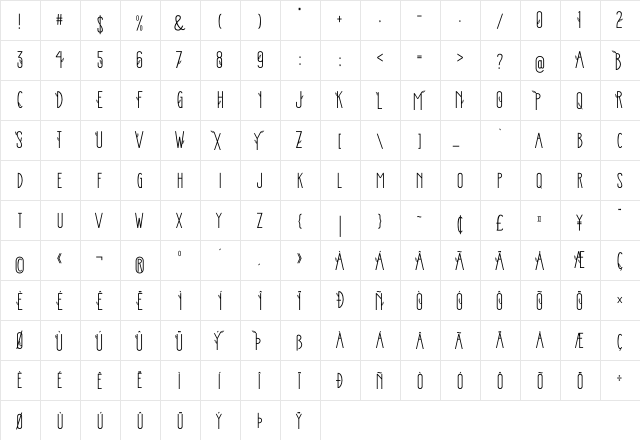
Stickman Clean Fancy Regular
Design Context for Stickman Clean Fancy Typeface
Stickman Clean Fancy is a composed and adaptable typeface that performs quietly and consistently across a wide range of design contexts.